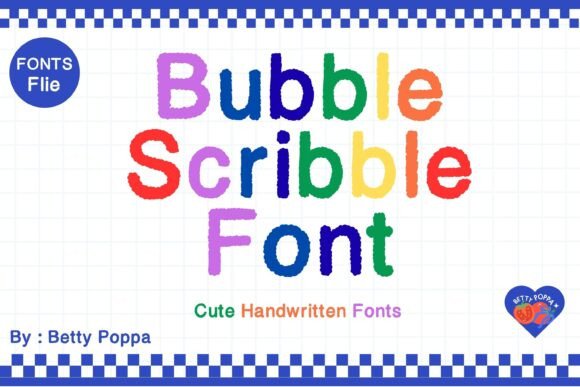
Bubble Scribble Font – The Ultimate Guide to This Cute Handwritten Font
This bold, high-impact display font has a unique, “marker-drawn” aesthetic that’s perfect for capturing the carefree essence of childhood. In this article, I’ll share my honest review of the Bubble Scribble font, provide a practical guide on how to use it, and explore similar fonts and alternatives.
My Honest Review of Bubble Scribble Font
• ✅ The Bubble Scribble font has a thick, saturated stroke that gives it an authentic and slightly urban feel.
• ✅ The overinflated letterforms with slightly uneven edges capture the “perfectly imperfect” nature of spontaneous handwriting.
• ✅ It’s exceptionally well-suited for projects that require maximum visibility and a dash of attitude, such as graffiti-inspired artwork, music festival posters, and edgy apparel design.
• ✅ The font’s retro appeal echoes the carefree essence of the ’90s while fitting perfectly into modern streetwear and pop-culture branding.
• 🤔 The font can be a bit overwhelming for body text, so it’s best used for headlines or titles.
• 🤔 Some of the letterforms can be a bit quirky, so it’s essential to experiment with different combinations to find the perfect fit.
3. Use the font’s OpenType features, such as glyphs and stylistic alternates, to add more personality to your design.
The Backstory of Bubble Scribble Font
The Bubble Scribble font was inspired by the carefree essence of childhood. Its designer wanted to create a font that captured the energy and playfulness of kids’ scribbles. The result is a font that’s perfect for projects that require a dash of attitude and a playful touch.
Q: What is the Bubble Scribble font best used for?
A: The Bubble Scribble font is best used for projects that require maximum visibility and a dash of attitude, such as graffiti-inspired artwork, music festival posters, and edgy apparel design.